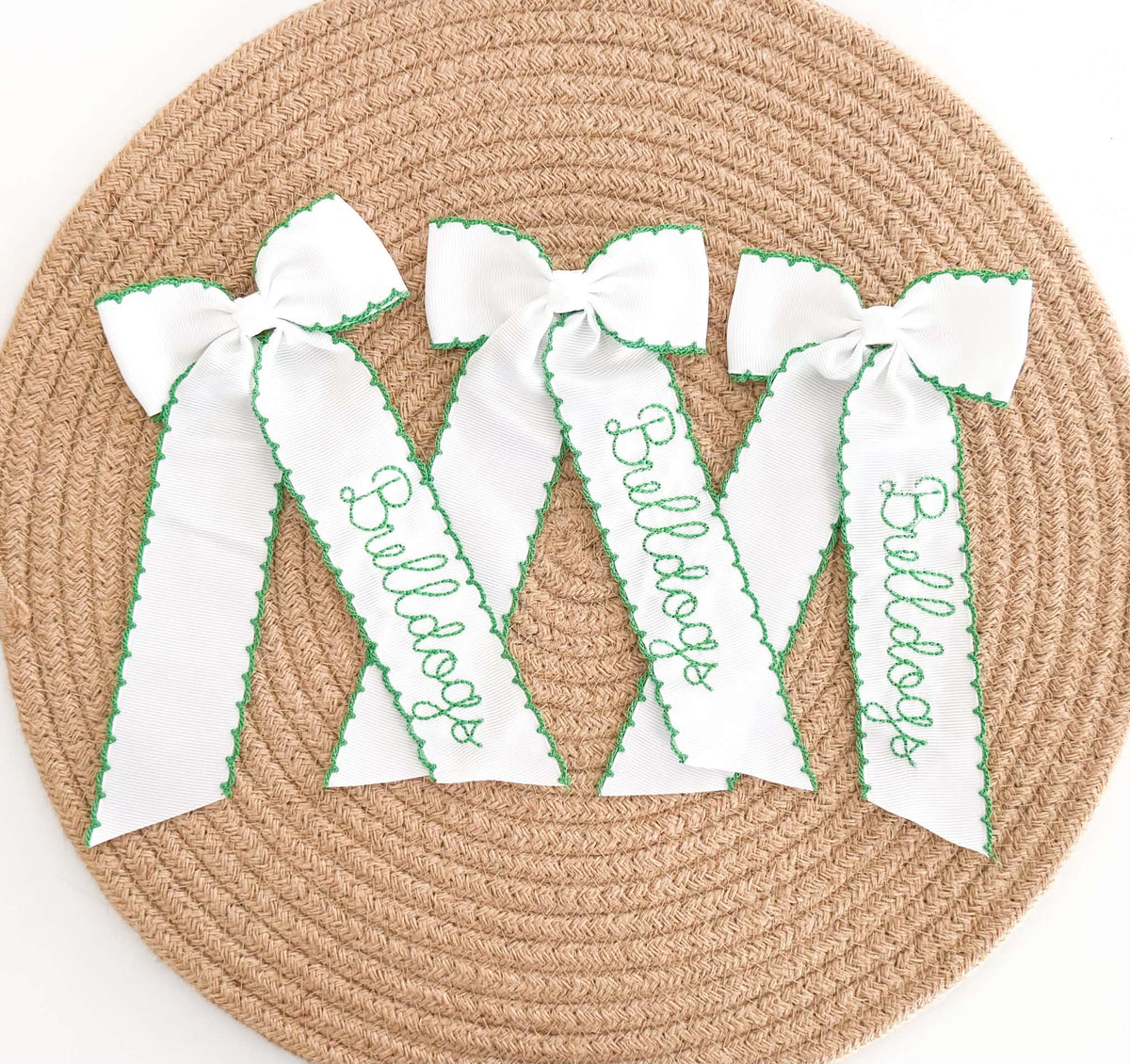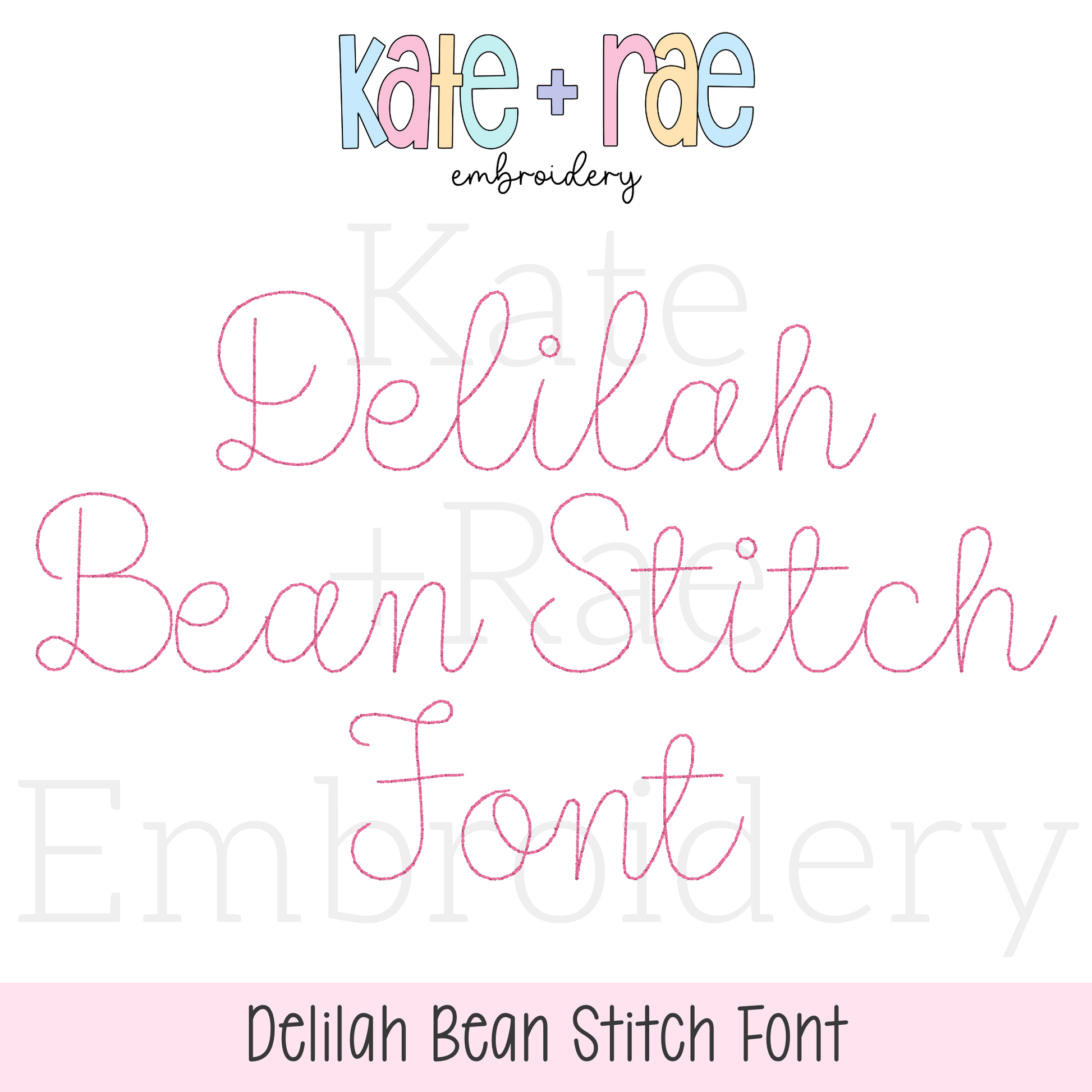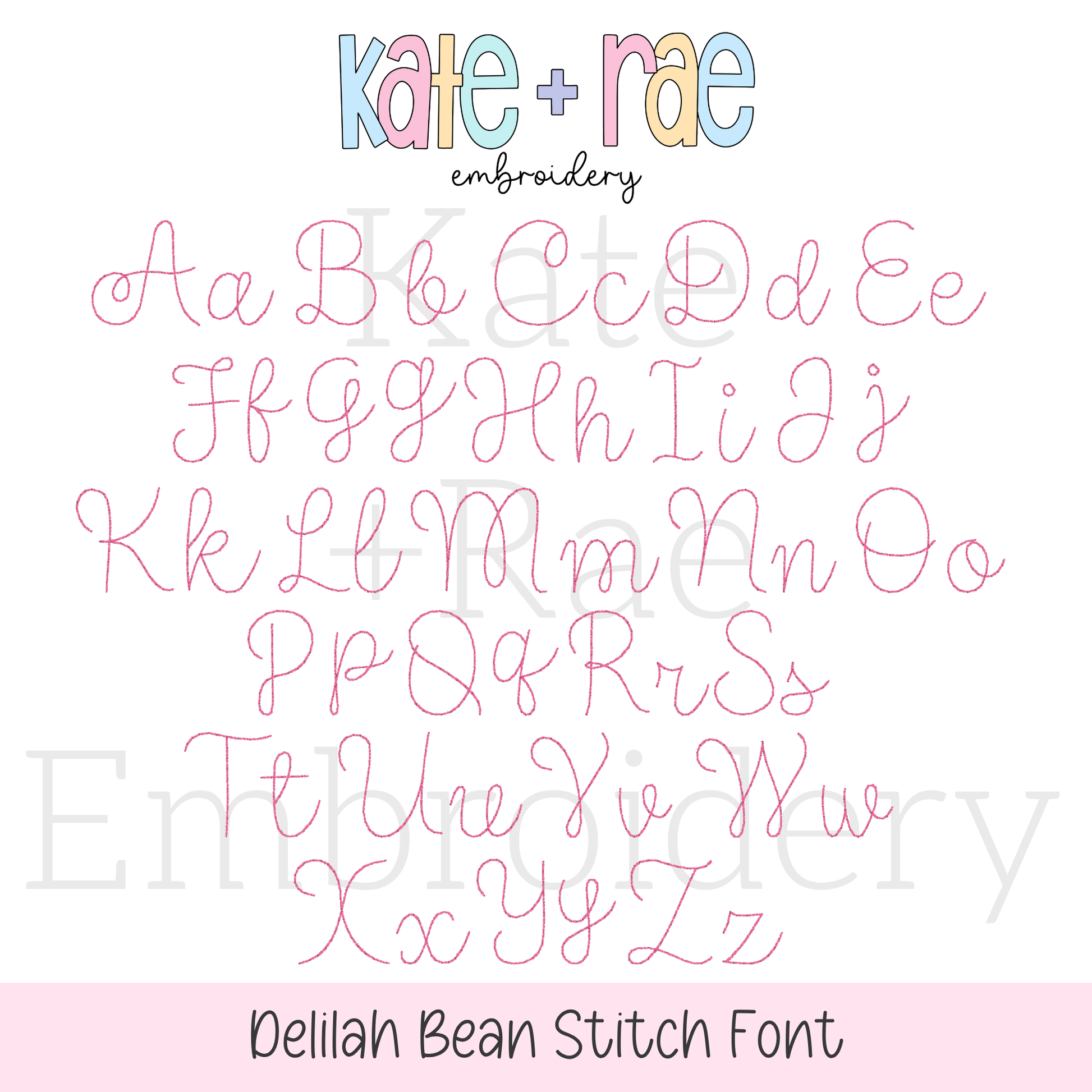
Delilah Bean Stitch Embroidery Font
Meet Delilah, a sweet bean stitch embroidery font! Personalize names, monograms, sweatshirts, and kids' outfits with a handmade look.